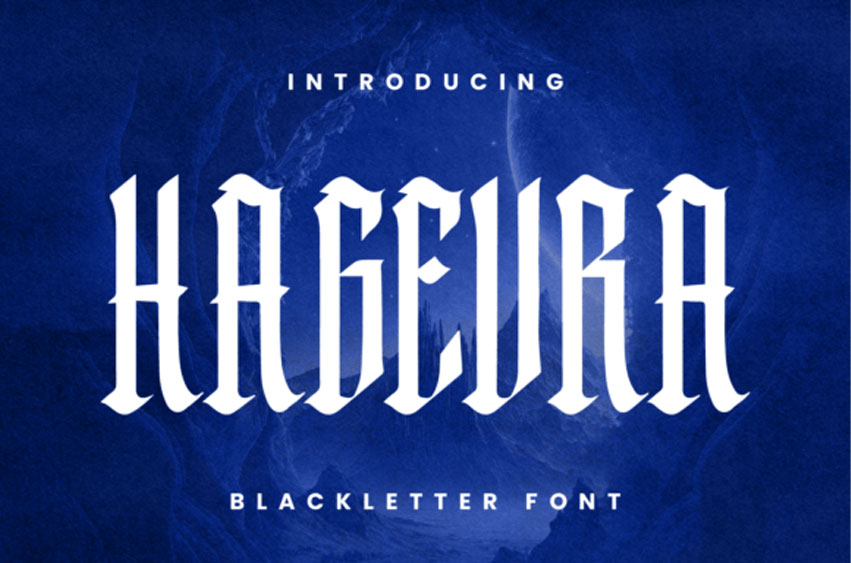
Hagevra Font
Hagevra Font Forge your expression with Hagevra, a blackletter font marrying the archaic charm of Gothic scripts with contemporary dynamism. Towering, acute, and definitive, Hagevra’s letterforms imprint a magnificent boldness into your design universe.
Be it inspiring posters, music album jackets, or visually enthralling branding, Hagevra presents every word with palpable strength, fervor, and trend-setting panache. Step into the world where ancient elegance meets modern sophistication with every stroke of Hagevra.